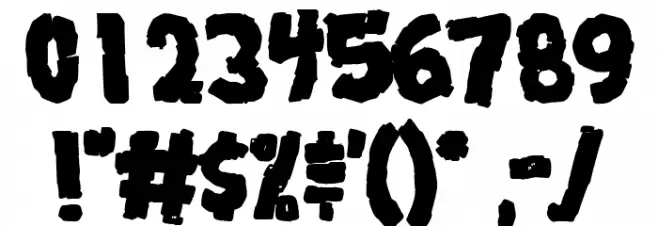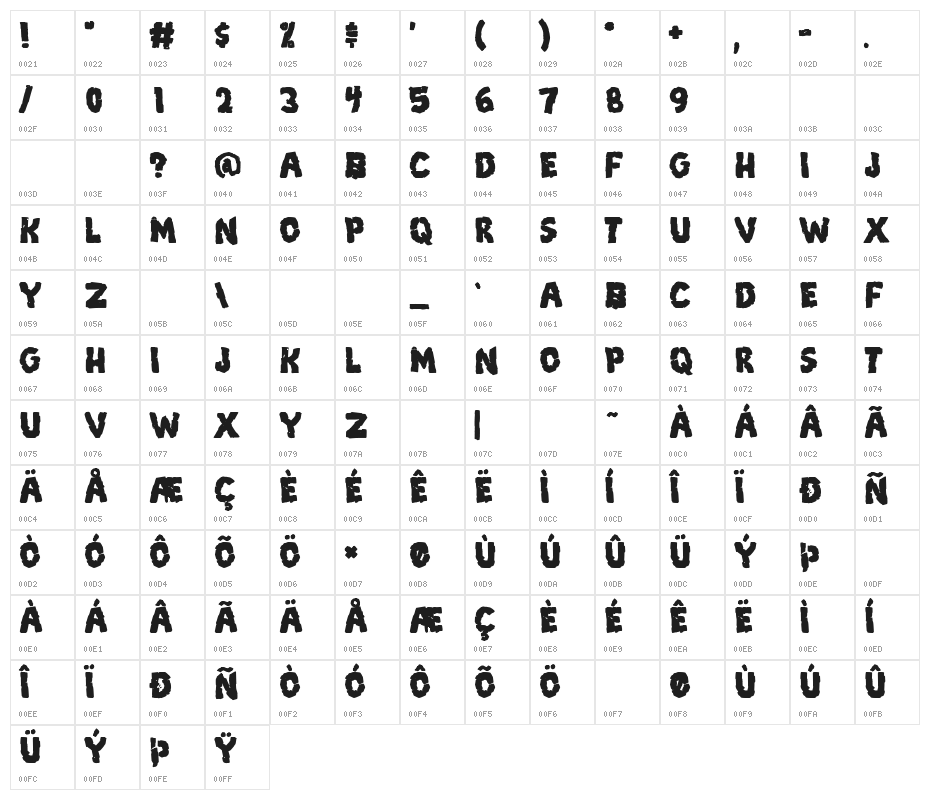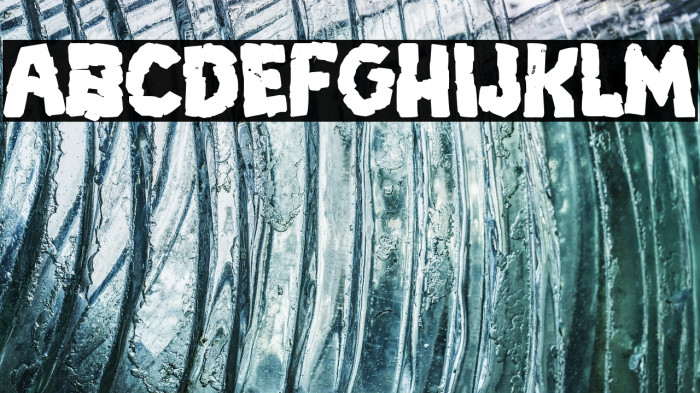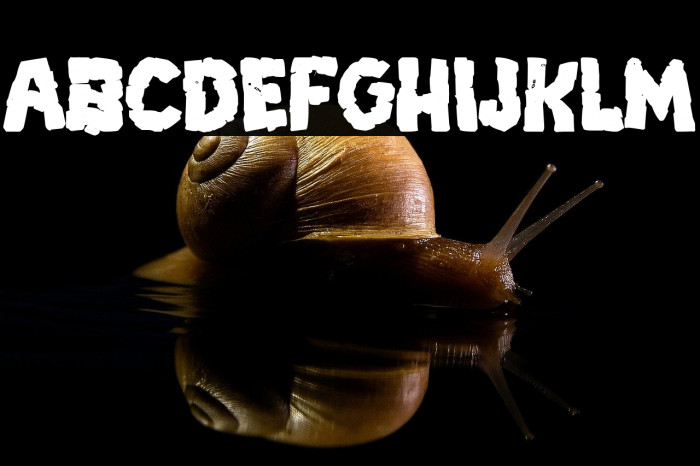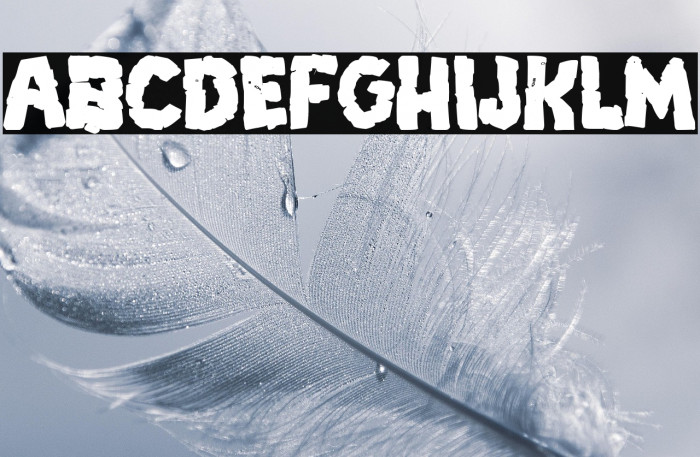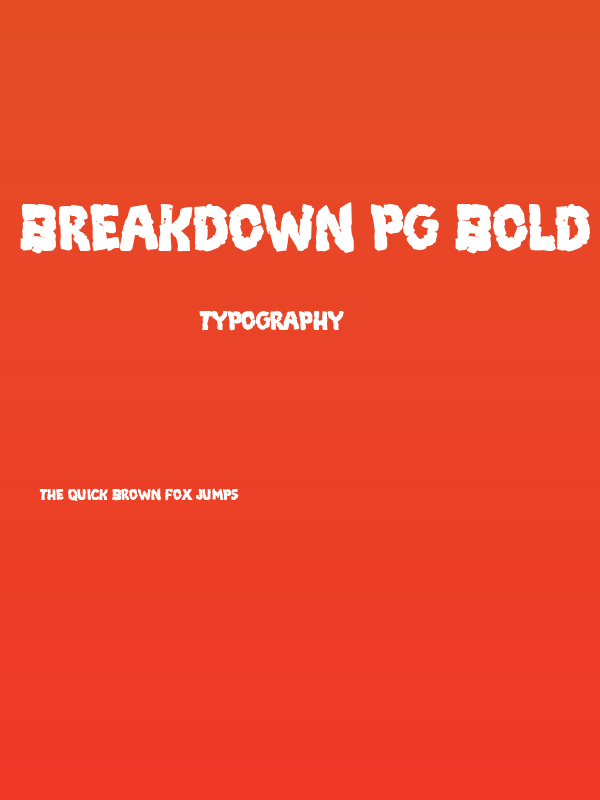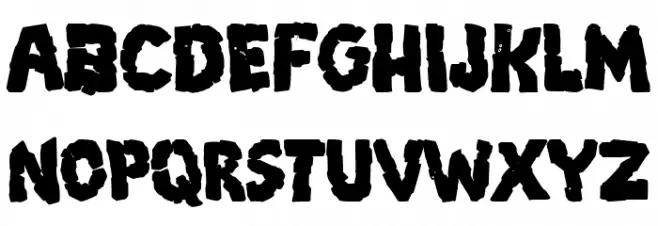
Breakdown PG Bold Font
Breakdown PG Bold Description
A bold, distressed font with a rough, textured appearance, giving it a grunge or urban style.
| Overall Style | Grunge, Urban |
| Proposed Projects | Posters, album covers, streetwear branding. |